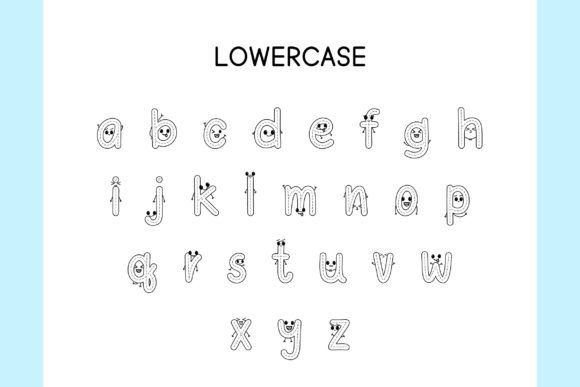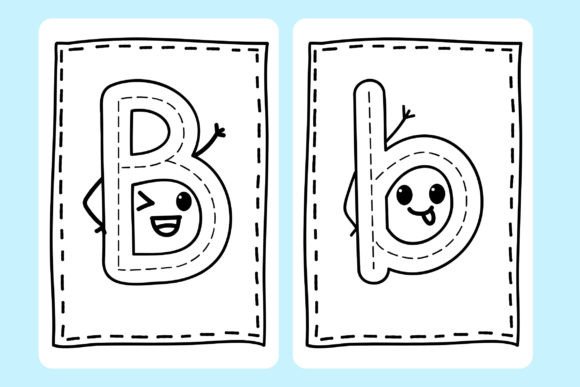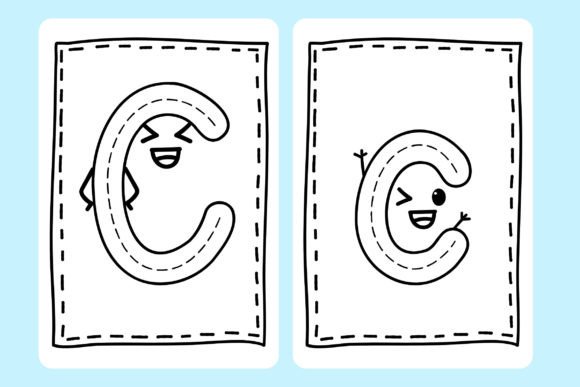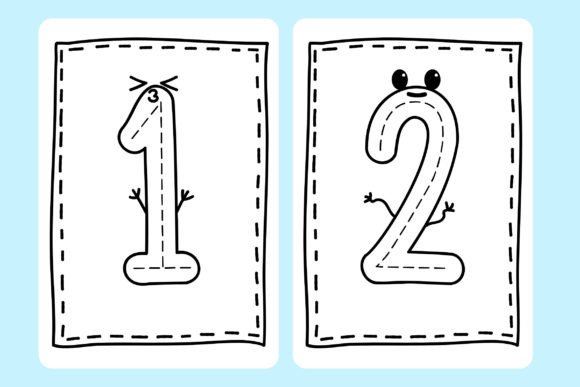
Funny Face Tracing Font
Introducing Funny Face Tracing an adorable alphabet tracing font designed with amusing facial expressions for each letter. This font is tailored to help children practice letter recognition skills while providing a delightful and engaging appearance. Perfectly suited for young learners, Funny Face Tracing is ideal for various educational purposes, including studying, worksheets, and learning materials in schools, kindergartens, and home school environments. Teachers and caregivers will appreciate its educational value and entertaining design, making it an excellent choice for promoting interactive learning experiences among children.